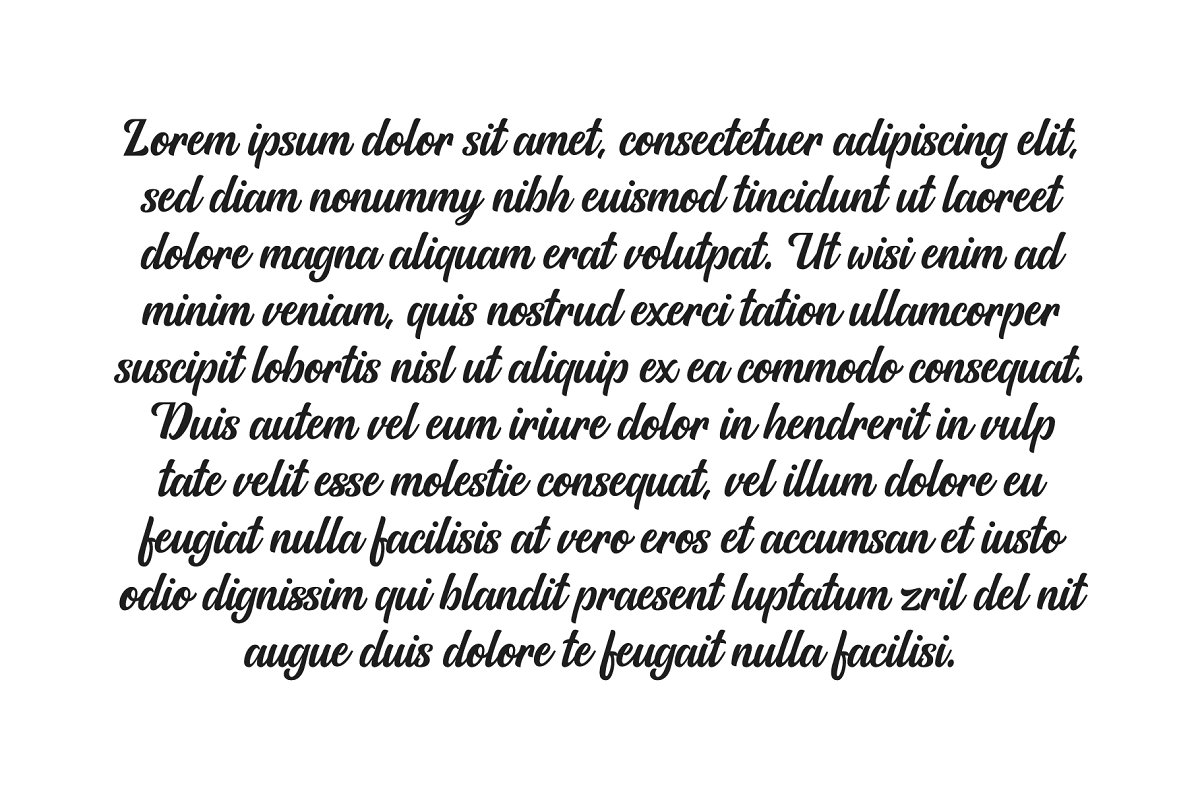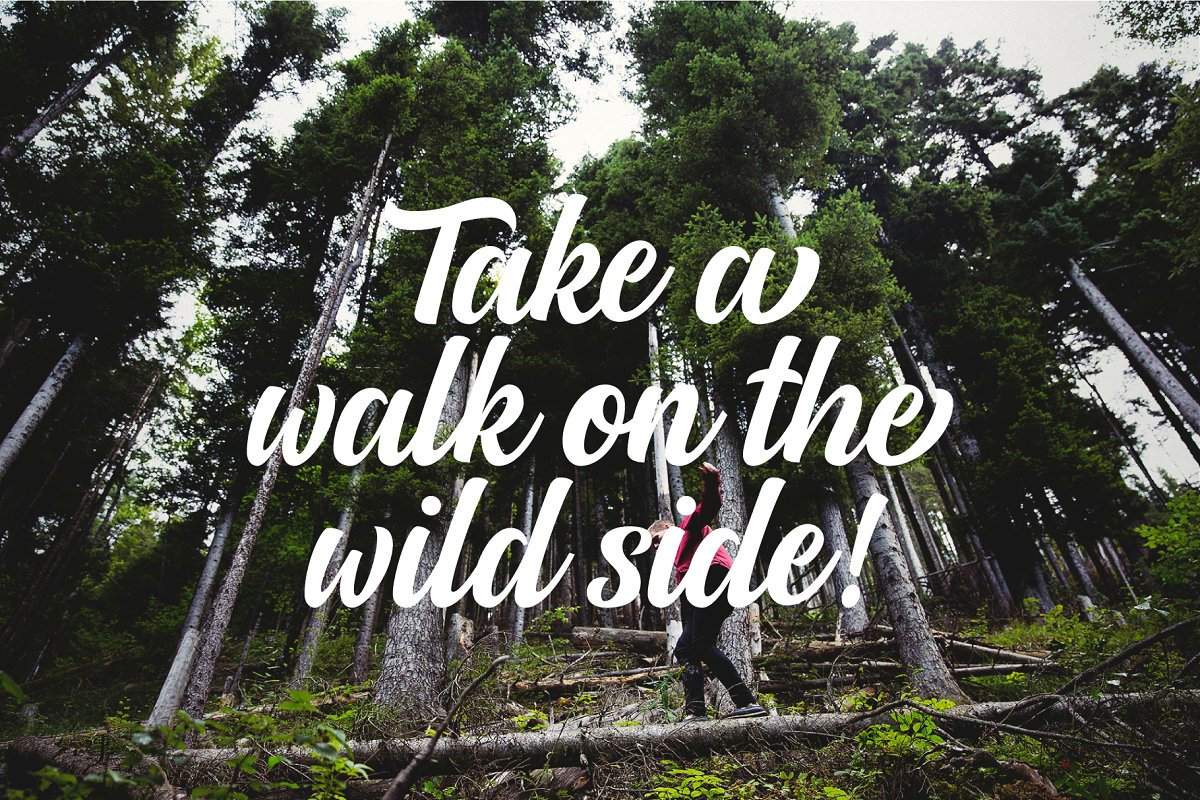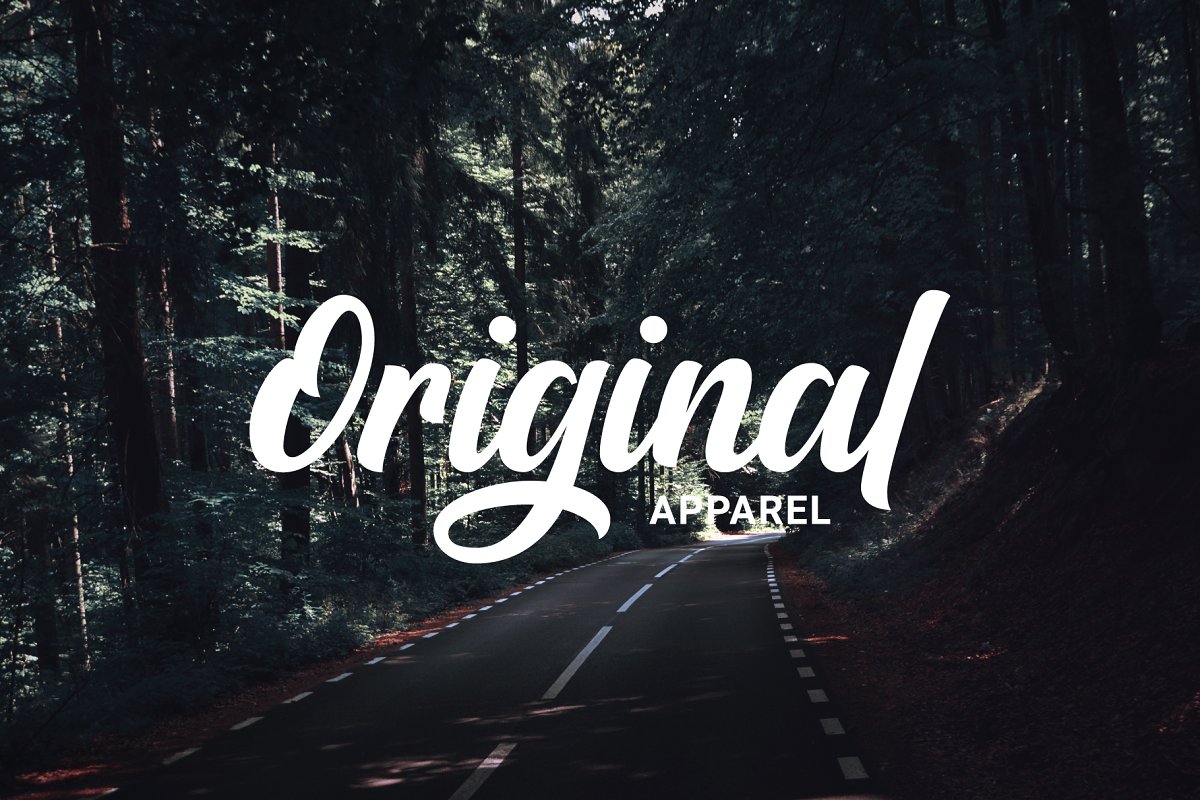
Allora Script Font
Introducing Allora Font. It is designed by WesleyBarnes, this is a premium font, are sold on creativemarket, but it was great, it is free today for download. Allora Script Font is a handmade formal script font that allows you to create beautiful brush pen script instantly. It is perfect for Logotypes, Letterheads, Advertisements, Posters and much more!